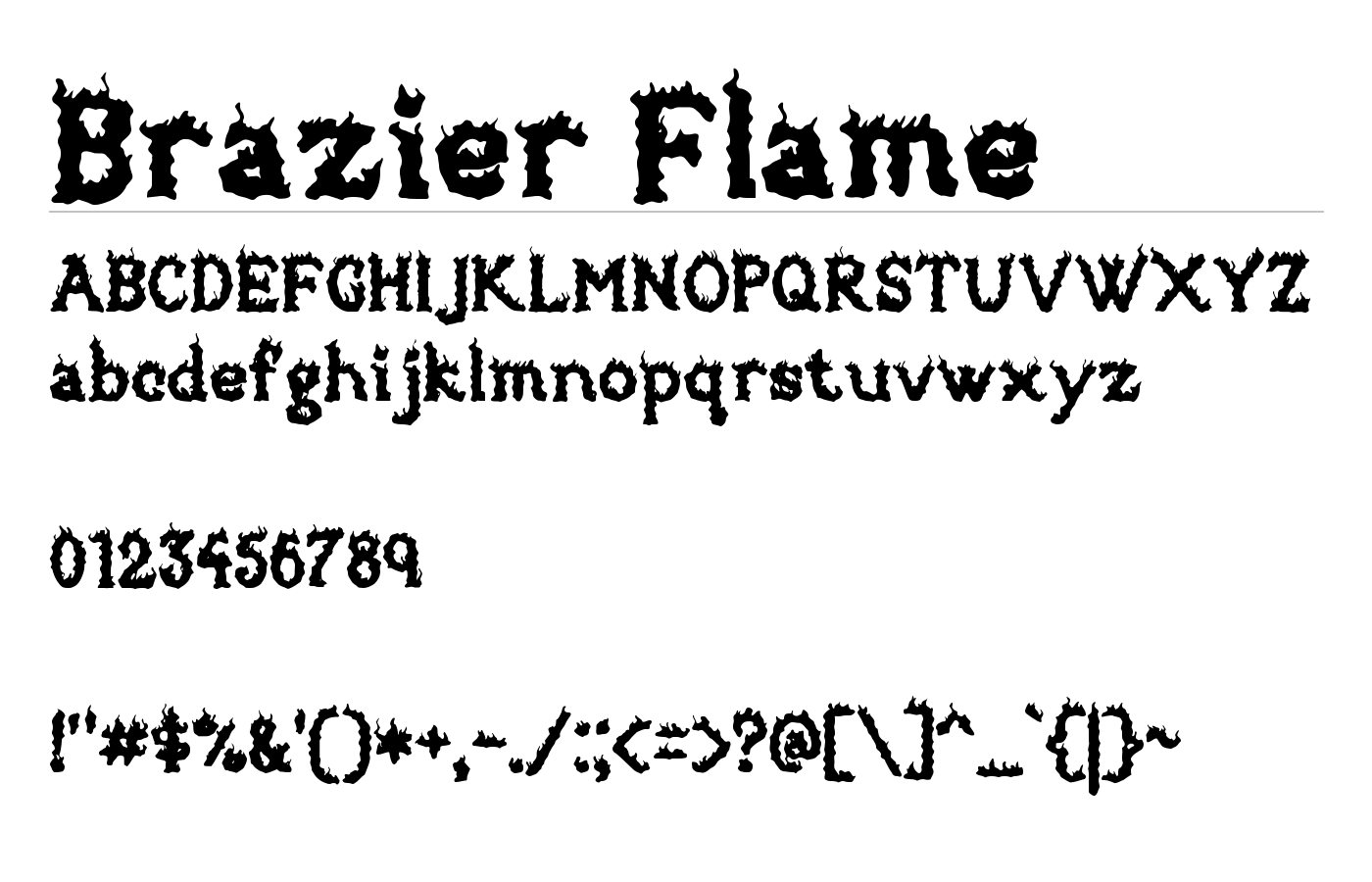
Brazier Flame is a bold, decorative serif font with a distinctive fiery texture resembling flickering flames. Its rough, jagged edges and strong weight create a dramatic, energetic feel, making it ideal for eye-catching headlines, posters, or branding that aims to convey intensity or a fiery theme. This font works best in creative, expressive designs where a bold, unique personality is needed rather than in long body text.
Brazier Flame Font
About Brazier Flame Font
| Designer | Walter E Stewart |